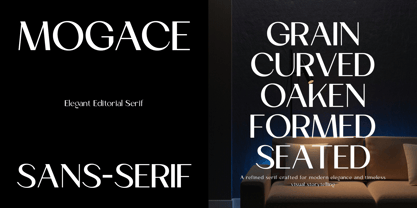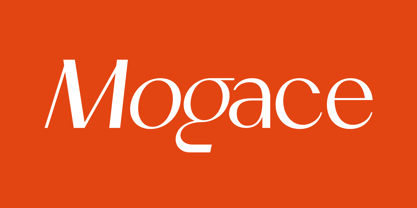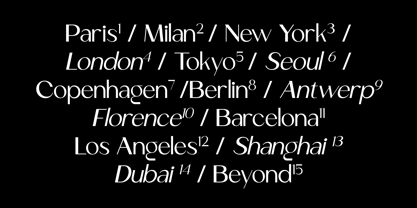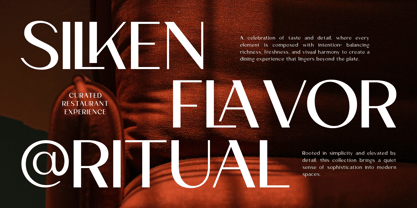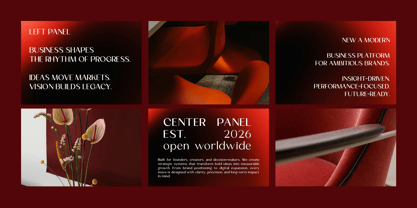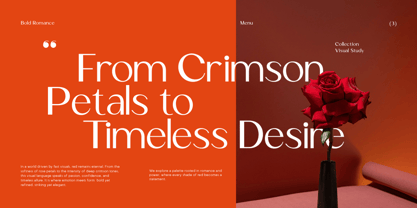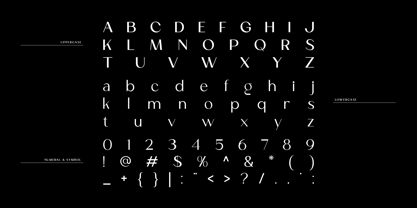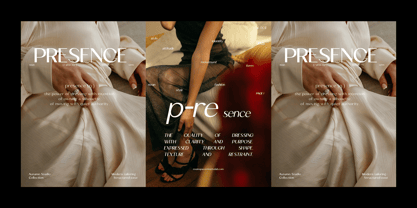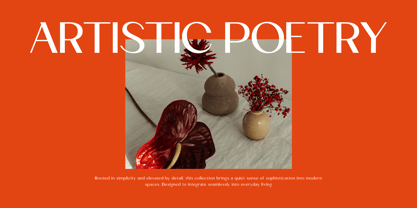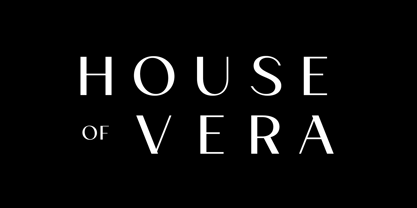
Mogace
Die Schriftfamilie Mogace wurde von Bakhrudin Ja'far entworfen und von Jafar07 veröffentlicht. Mogace enthält 2 Stile und Familienpaketoptionen. Mehr über diese Familie
Mogace is a modern editorial serif typeface designed to deliver elegance and visual sophistication. With its high-contrast strokes, refined curves, and carefully balanced proportions, Mogace creates a strong yet graceful presence across a wide range of applications. Inspired by fashion magazines and luxury branding, this typeface is built for designers who seek clarity, style, and timeless appeal. Whether used for bold headlines or refined layouts, Mogace enhances visual storytelling with a distinctive editorial tone. Features: Modern high-contrast serif Uppercase & lowercase Ligatures & stylistic alternates Multilingual support Smooth kerning & spacing Perfect For: Luxury branding, fashion editorials, logos, packaging, magazines, social media, and visual identity systems.
Designer: Bakhrudin Ja'far
Foundry: Jafar07
A little from my personal design & background: My name is Bakhrudin Ja'far, I live in Malang, Indonesia. I am currently completing my degree in visual communication design and I have worked as a lettering artist and logo designer for many years. I finally started my studio called roocspace creative lab (jafar07) Studio a few months ago and with my team made my letters into typography.